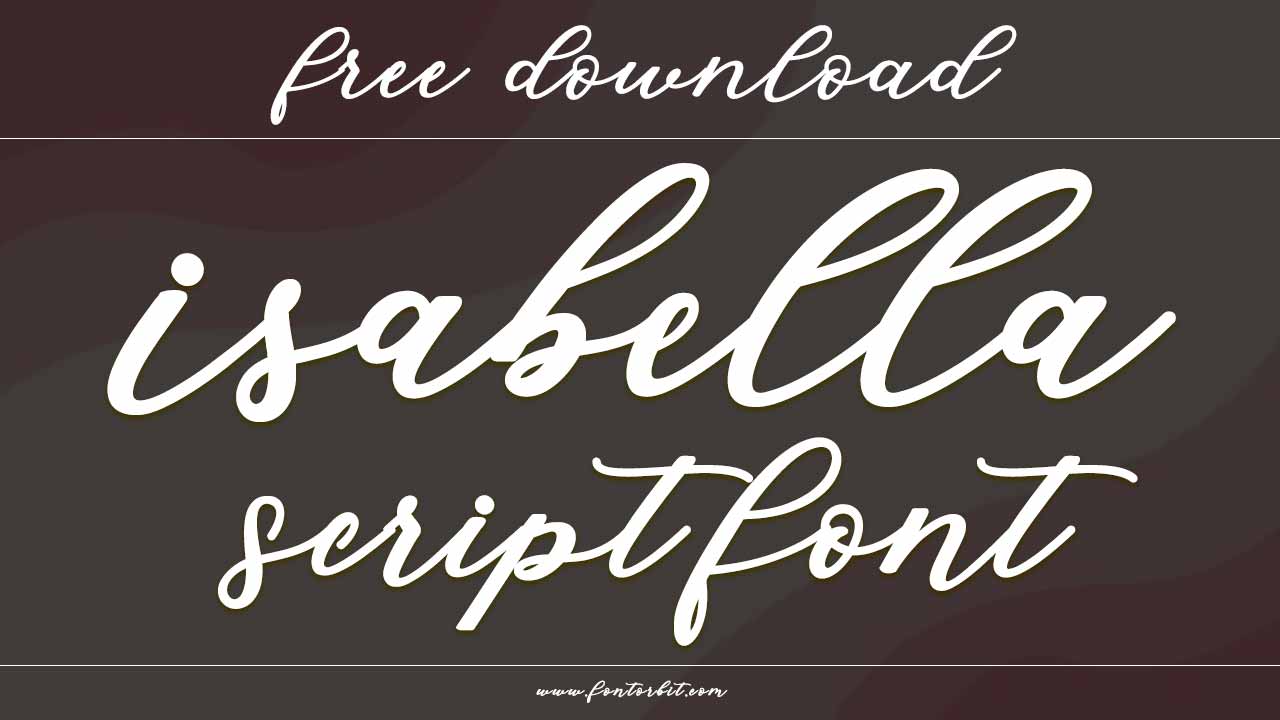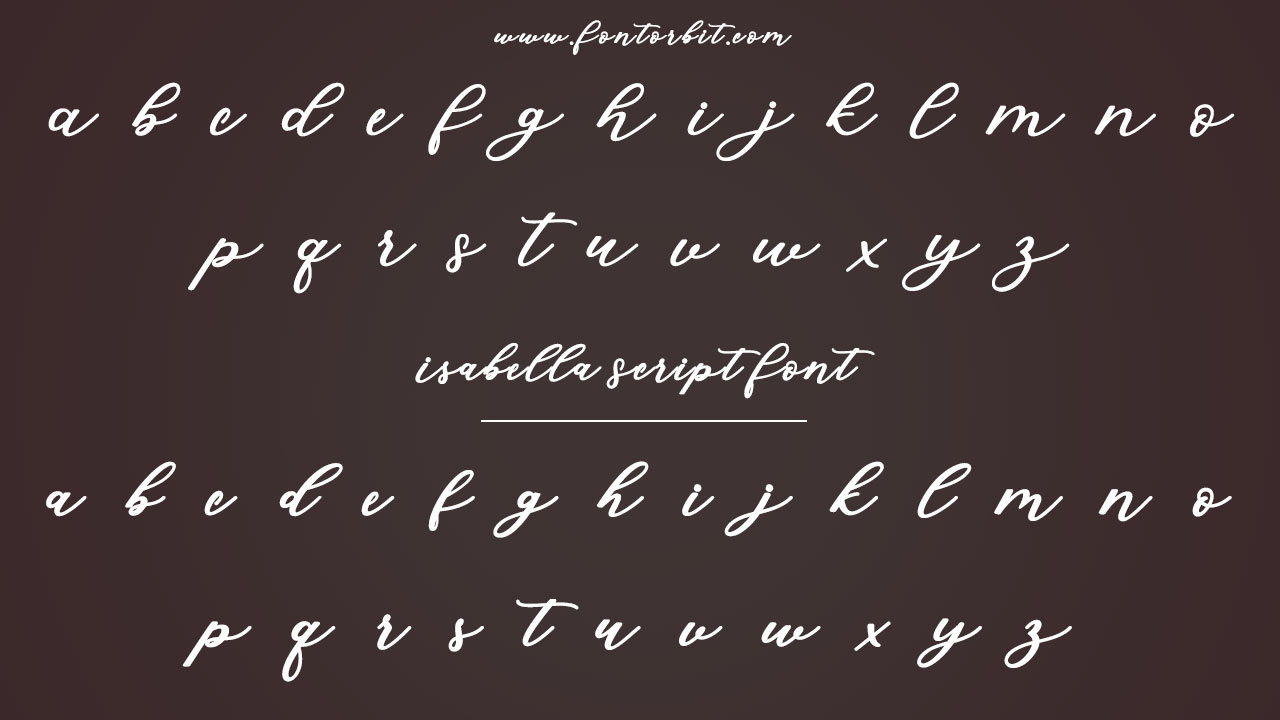
When it comes to designing elegant and sophisticated wedding invitations, the right font makes all the difference. Designed by Seniors Studio, the Isabella Script Font brings a graceful handwritten charm to any project. This contemporary typeface seamlessly blends classic calligraphy with modern design, making it perfect for invitations, greeting cards, and branding.
Why Choose Isabella Script Font?
The Isabella Script Font is known for its stylish handwritten feel, featuring beautiful ligatures and alternative characters. Available in multiple styles, it provides the flexibility needed to create stunning typography.
Isabella Script Font Family Names
- Isabella Script Regular
- Isabella Script Monoline
Key Features
- Elegant Handwritten Style – Ideal for invitations, branding, and stylish projects.
- Alternative Characters & Stylistic Alternates – Customize text for a unique look.
- Extensive Glyph Set – Over 169 alternate characters for added versatility.
- Multilingual Support – Includes accented characters for various languages.
Where to Use Isabella Script Font
Final Thoughts
The Isabella Script Font is a perfect blend of elegance and versatility. Whether you’re designing wedding invitations, creating stylish branding, or crafting vintage fonts for artistic projects, this handwritten font provides the perfect balance of modern and classic aesthetics.
4. What makes Isabella Script great for wedding invitations?
Its elegant curves, stylistic alternates, and 169 alternate characters make it a perfect choice for romantic and formal designs.
7. Is Isabella Script good for logos?
Absolutely! Its refined calligraphy makes it an excellent logo font choice for branding.